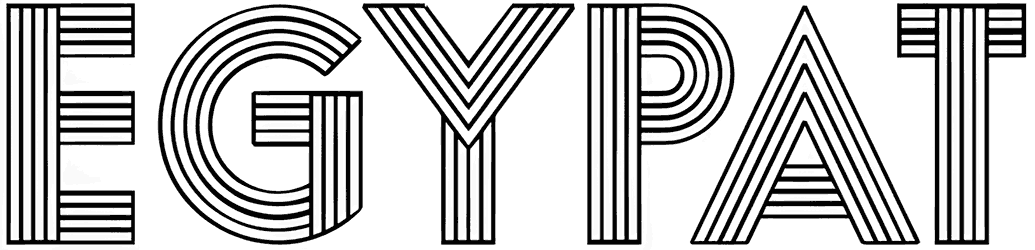
Avenida Font
If you’re designing under the influence of the art and culture of a certain period, Avenida can visually show the historical feeling. This multi-line font is a combination of lines and a geometric appearance, and even without lowercase letters, it works great for designing logos of engineering brands and posters for mathematics exhibitions.